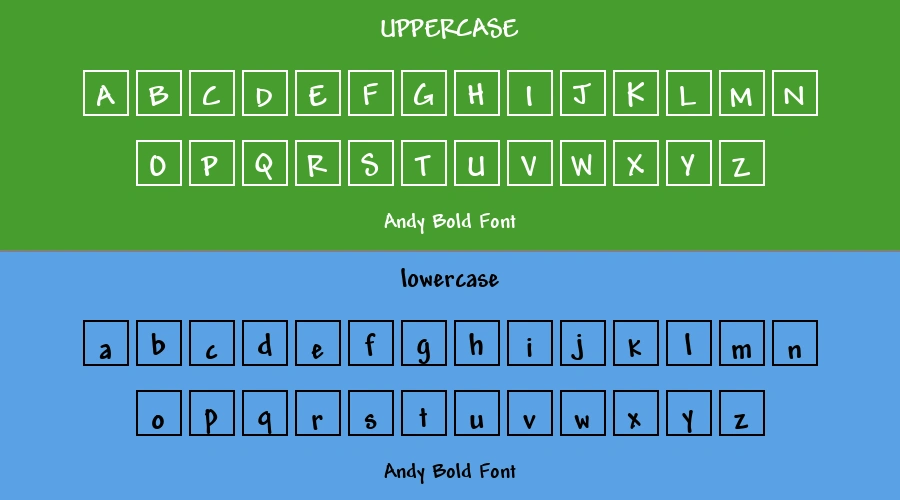
About Andy Bold Font
Andy Bold Font stands out for its distinctive combination of graceful curves and creative expression. Ideal for logo design, it provides the accuracy and industrial strength that professional projects demand. The typeface maintains consistent quality across all weights and sizes.
Key features include refined proportions and practical historical alternates, enhancing typographic expression. In running text applications, Andy Bold Font demonstrates exceptional consistency. The stem weight and technical tradition contribute to its distinctive character and professional appeal.